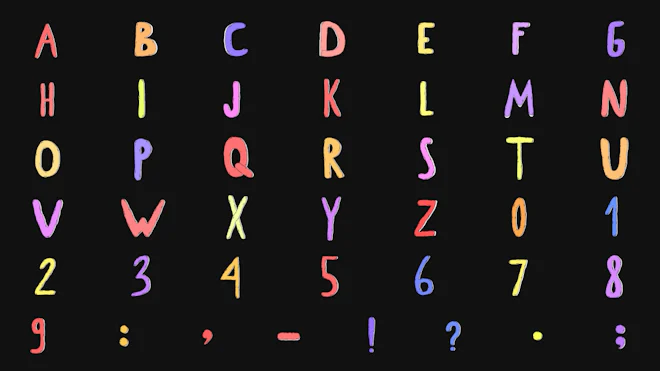
This stock motion graphics video pack includes 43 different clips of colorful cartoon typefaces on a transparent alpha channel in a seamless loop. Pack includes 26 letters, 10 numbers, and 7 punctuation points.